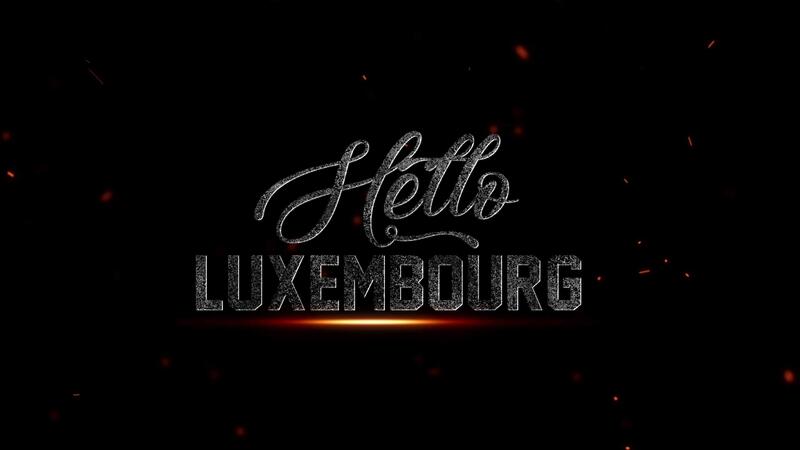
The word hello luxembourg in a distressed, metallic font with a subtle outline and a dark, smoky background with glowing embers, 4k resolution Pro Video